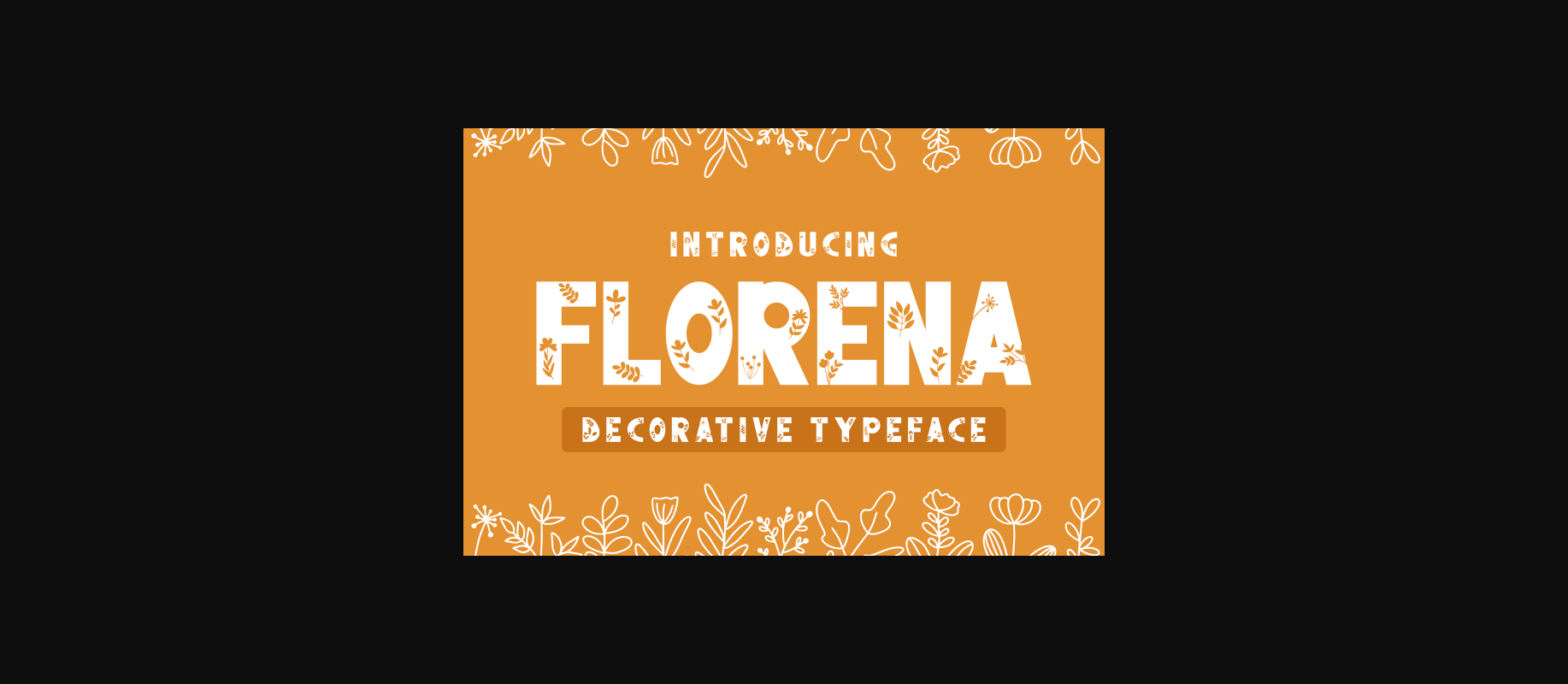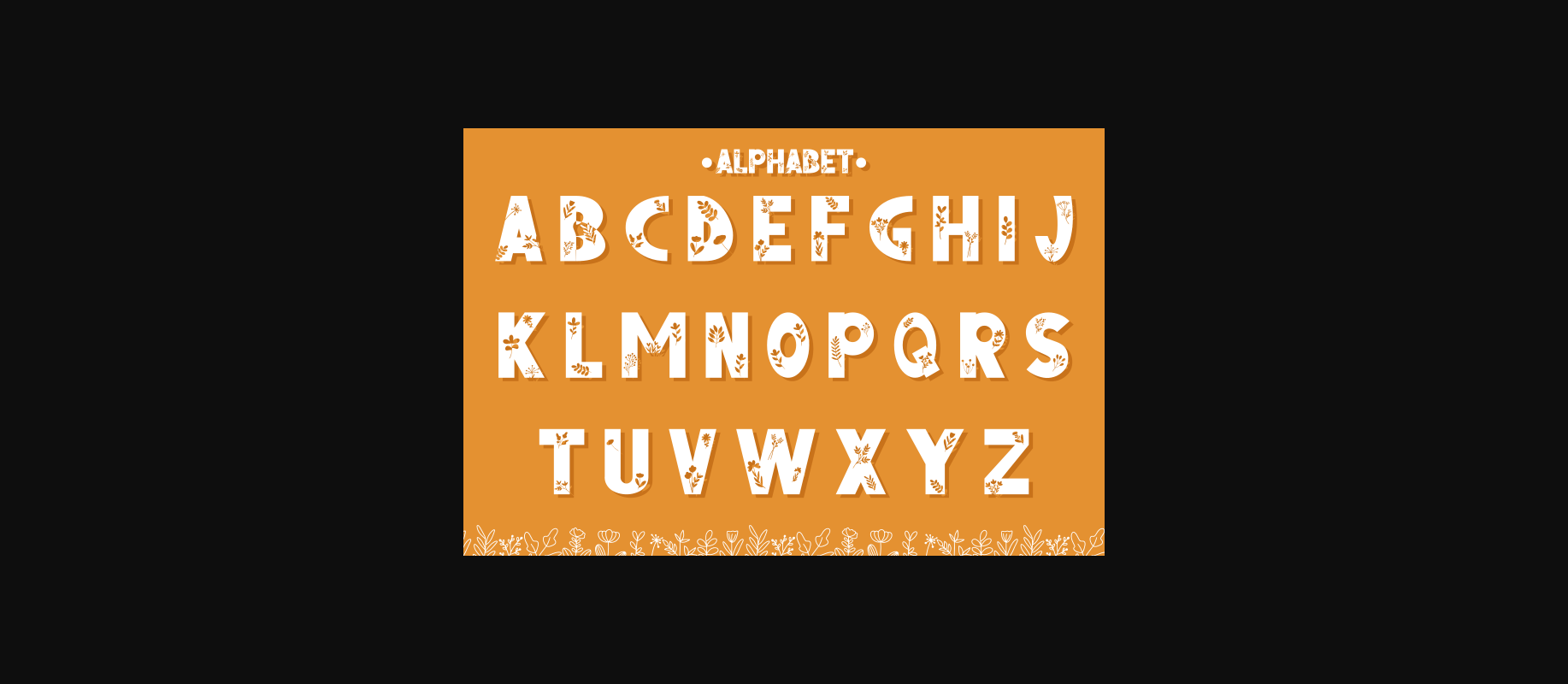
About Florena Font
Florena is a cool and thick lettered decorative font. This font is neatly crafted and highly detailed. Whatever the topic, this font will be a wonderful asset to your font library, as it has the potential to enhance any creation.